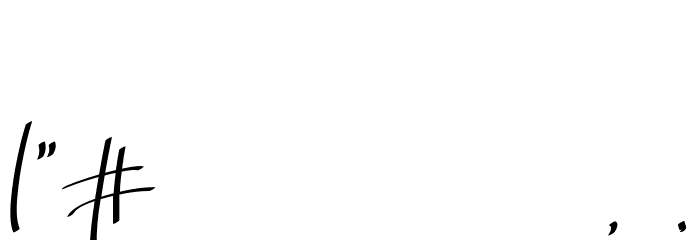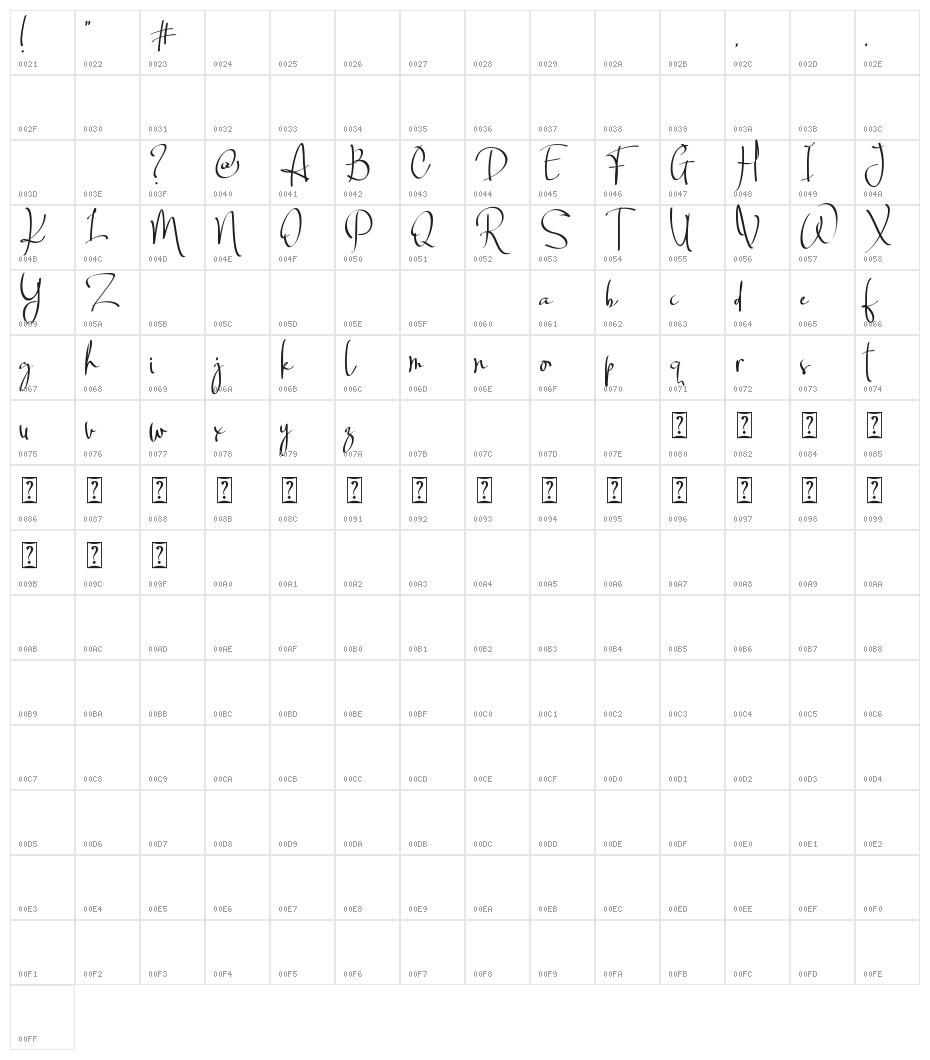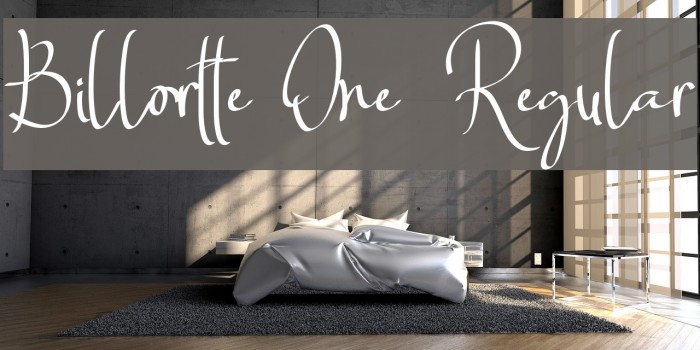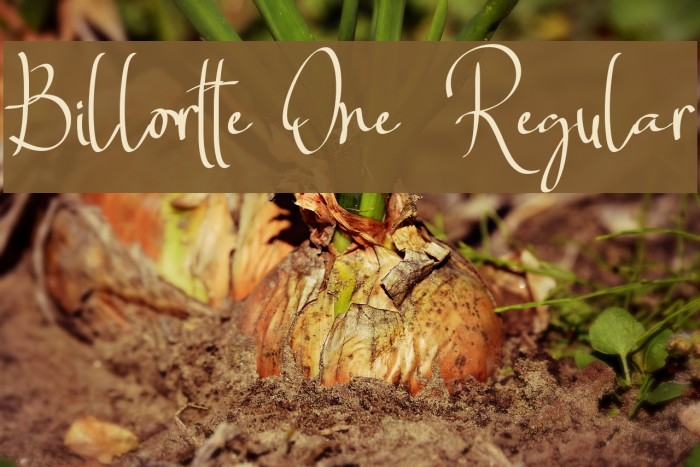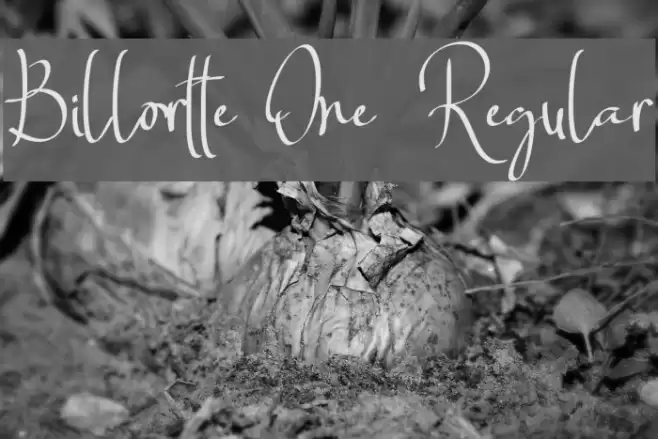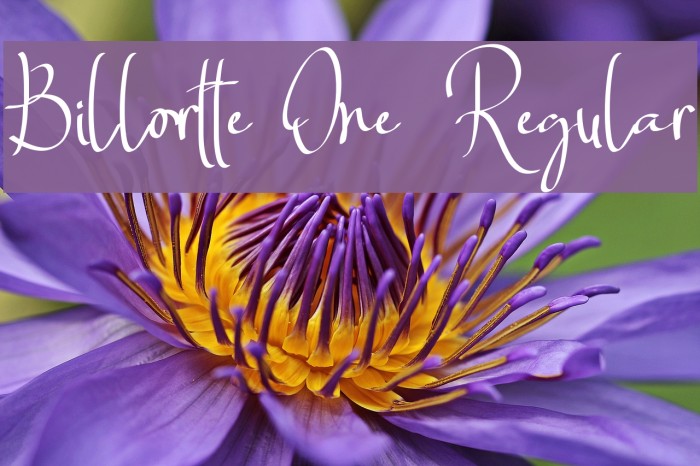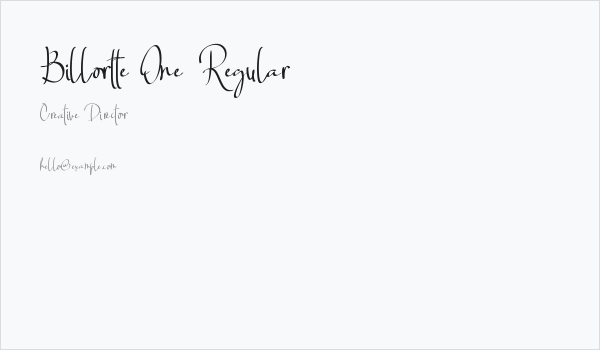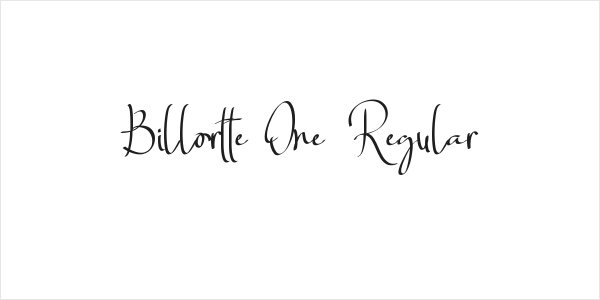
Billortte One_Regular Font
Billortte One_Regular Description
This font exhibits a dynamic and expressive style, characterized by its flowing, cursive-like strokes. The uppercase letters are tall and elegant, with a slight slant that adds a sense of motion and fluidity. The lowercase letters maintain a consistent style, with elongated ascenders and descenders that enhance the font's graceful appearance. The overall design is reminiscent of modern calligraphy, combining both traditional and contemporary elements. The special characters are crafted with the same attention to detail, ensuring a cohesive look throughout. This font is perfect for projects that require a touch of sophistication and creativity.
| Proposed Projects | Ideal for wedding invitations, greeting cards, branding, and artistic projects. |